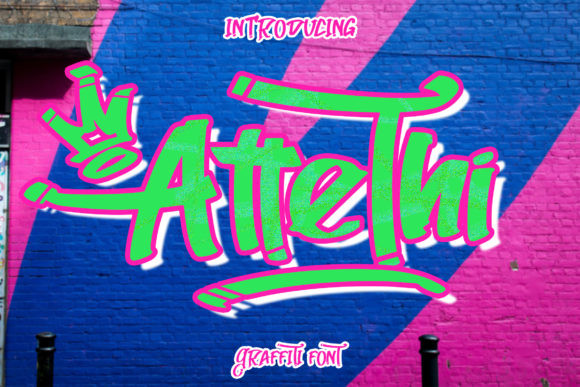
Attethi Font
Attethi is a unique graffiti font. Use this eye-catching display font for magazines, t-shirt designs, street fashion and any other project that requires a street art look!